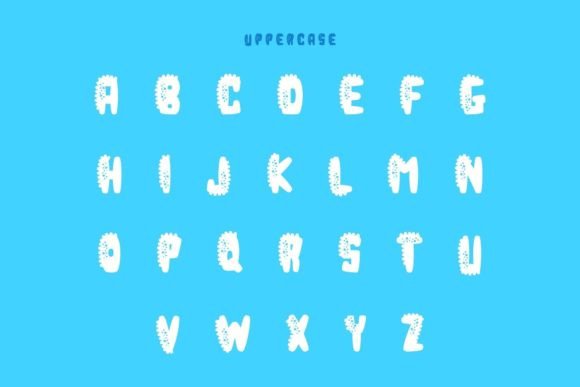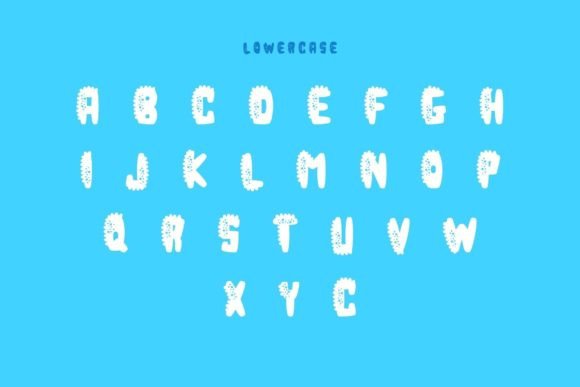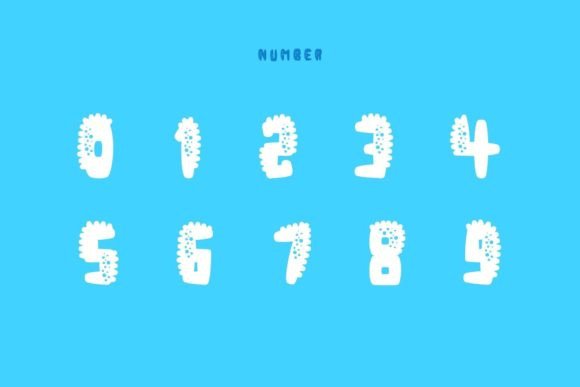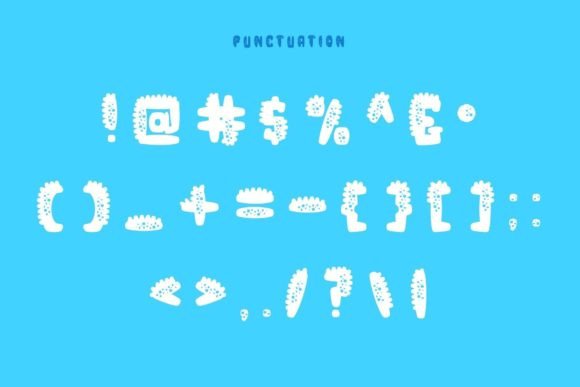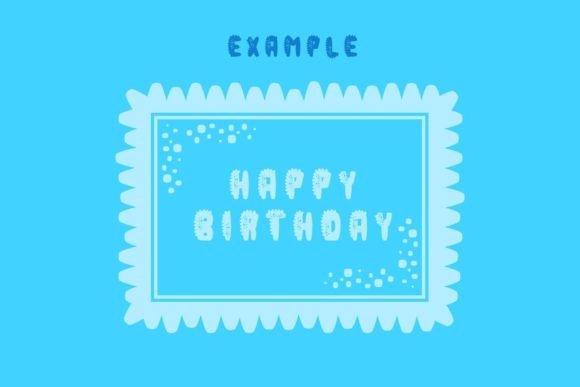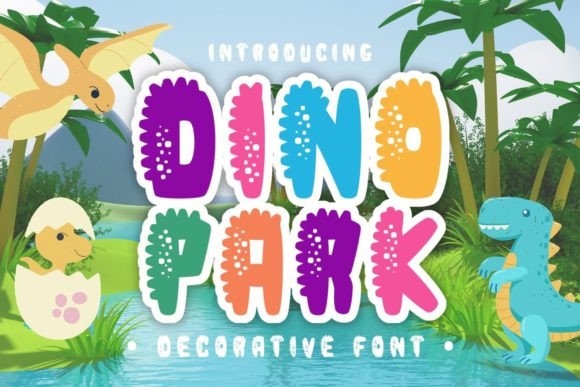
Dino Park Font: Unleash Your Creativity with a Cute and Fun Decorative Font
Are you a designer, crafter, or DIY enthusiast looking for a font that can add a touch of playfulness and authenticity to your projects? Look no further than the Dino Park font! This adorable decorative font is perfect for a wide range of creative endeavors, from blog posts and logos to branding, ads, invitations, greeting cards, planners, photo albums, decorations, and more.
What Makes Dino Park Font So Special?
Dino Park font is a unique and charming typeface that embodies the spirit of fun and playfulness. Its cute and quirky design makes it an excellent choice for projects that require a touch of whimsy and personality. Whether you’re creating a children’s book, a craft tutorial, or a social media graphic, this font is sure to delight your audience and leave a lasting impression.
Endless Possibilities with Dino Park Font
The versatility of Dino Park font is one of its most significant advantages. You can use it to create a wide range of designs, including:
• Blog Posts: Add a playful touch to your blog posts and make them more engaging and fun to read.
• Logos and Branding: Create a memorable and recognizable brand identity with a custom logo that showcases your personality and style.
• Ads and Marketing Materials: Grab attention and stand out from the crowd with eye-catching ads and marketing materials that feature the Dino Park font.
• Invitations and Greeting Cards: Make your invitations and greeting cards more special and personalized with this charming font.
• Planners and Organizers: Add a touch of fun and personality to your planners and organizers and make them more enjoyable to use.
• Photo Albums and Scrapbooking: Create beautiful and memorable photo albums and scrapbooking pages with the Dino Park font.
• Decorations: Use the font to create custom decorations, such as wall art, signs, and banners, that add a personal touch to any room or event.
Why Choose Dino Park Font?
So, why should you choose the Dino Park font for your next project? Here are just a few reasons:
• Unique and Playful Design: The Dino Park font features a one-of-a-kind design that’s sure to capture attention and spark imagination.
• Easy to Read and Use: Despite its playful design, the font is easy to read and use, making it perfect for a wide range of applications.
• High-Quality and Versatile: The font is of high quality and can be used in various projects, from digital designs to print materials.
Tips for Using Dino Park Font
To get the most out of the Dino Park font, here are a few tips to keep in mind:
• Experiment with Colors: Try pairing the font with different colors and textures to create unique and eye-catching designs.
• Mix and Match with Other Fonts: Combine the Dino Park font with other fonts to create interesting and dynamic typography.
• Use it for Headings and Titles: The font is perfect for headings and titles, so don’t be afraid to use it to add a touch of personality to your designs.
Font Name Dino Park Font
Author Brown Cupple Fonts
In conclusion, the Dino Park font is a versatile and charming typeface that’s perfect for designers, crafters, and DIY enthusiasts looking to add a touch of playfulness and authenticity to their projects. With its unique design, ease of use, and high-quality output, this font is sure to become a favorite in your creative toolkit. So why wait? Download the Dino Park font today and unleash your creativity!